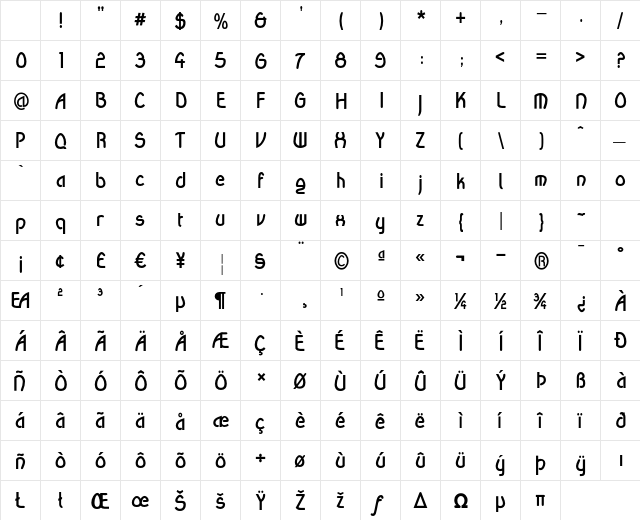
Complete Wanda Bold glyph index. Displaying only characters natively supported by Wanda Bold font.
Wanda is a composed and adaptable typeface that performs quietly and consistently across a wide range of design contexts. Its bold stroke weight gives it real presence on the page.